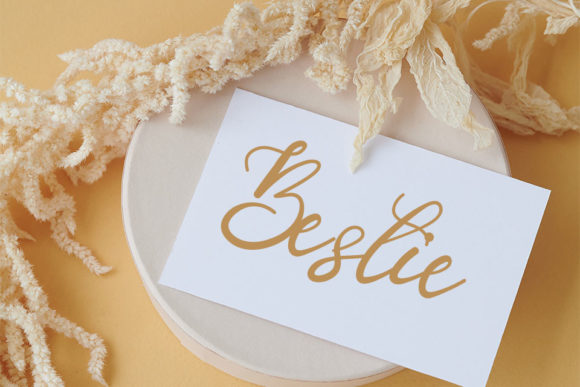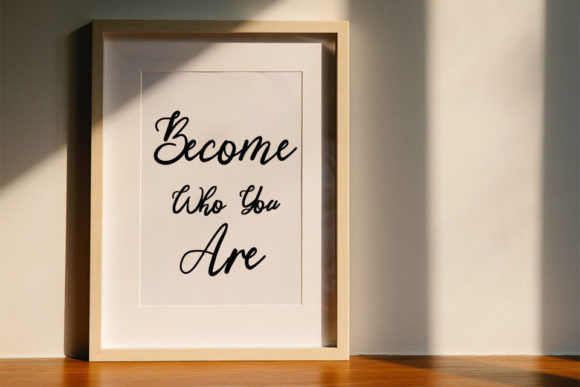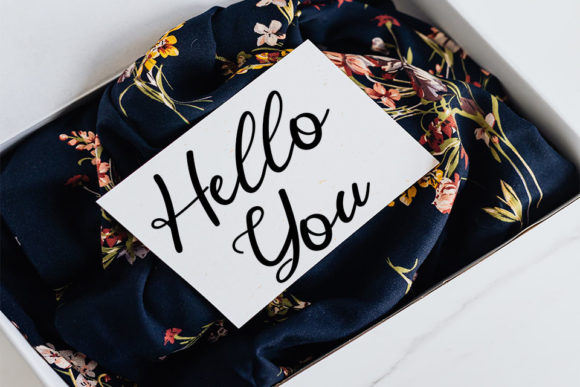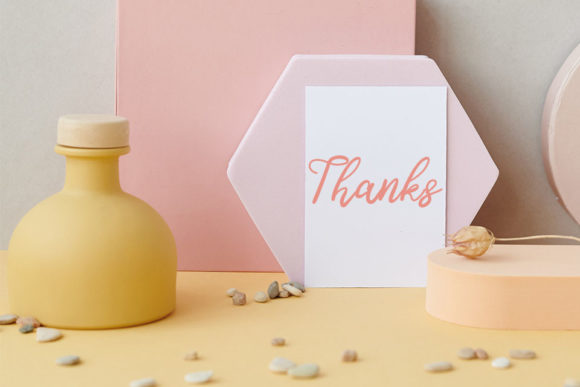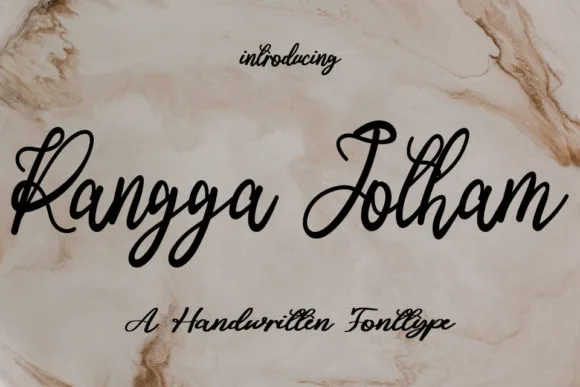
Rangga Jotham Font
About Rangga Jotham Font
Introducing Rangga Jotham, a mesmerizing script font meticulously designed to redefine the boundaries of typographic excellence. This exquisite creation seamlessly marries the timeless allure of classic calligraphy with a fresh, contemporary edge, making it a standout choice for designers seeking sophistication and versatility.
From its graceful flourishes to its meticulously crafted letterforms, Rangga Jotham exudes elegance at every curve. Each stroke is imbued with an unparalleled level of artistry, capturing the essence of handcrafted beauty in every character. Whether gracing wedding invitations, branding materials, or digital content, this font radiates charm and sophistication, elevating any project to new heights of visual appeal.
What sets Rangga Jotham apart is its ability to evoke emotion and captivate audiences. Its fluid lines and delicate curves create a sense of harmony and balance, drawing the viewer in with an irresistible allure. This font isn’t just a tool for communication; it’s an experience—a journey through the artistry of typography that leaves a lasting impression on all who encounter it.
But Rangga Jotham isn’t just a feast for the eyes; it’s also designed with practicality in mind. Its legibility ensures effortless readability across various mediums and sizes, making it a reliable choice for both print and digital applications. Whether displayed on a billboard or viewed on a smartphone screen, every word remains clear and captivating, maintaining the integrity of your message.
From a search engine optimization (SEO) perspective, Rangga Jotham offers more than just aesthetic appeal. Its clean lines and balanced proportions enhance readability, thereby improving user experience—a critical factor in search engine rankings. By incorporating this font into your online content, you not only enhance its visual appeal but also optimize its performance in the digital sphere, ensuring maximum visibility and engagement.
In conclusion, Rangga Jotham isn’t just a font; it’s a testament to the power of design to inspire, engage, and elevate. With its timeless elegance, contemporary flair, and practical versatility, it has the potential to transform any project into a masterpiece. Embrace Rangga Jotham, and let your creativity soar to new heights as you explore the endless possibilities it holds within its graceful curves and captivating strokes.